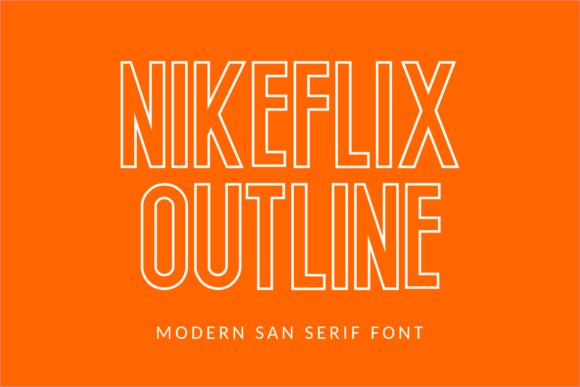
Introducing Nikeflix Outline, the ultimate display font designed by Goodrichees. If you're searching for the best font for your wedding hashtag, look no further. Nikeflix Outline is perfect for adding that extra touch of elegance to your big day.
But it's not just for weddings. This cool, outlined font is versatile enough to be used in a variety of design projects. Whether you're creating t-shirts, sportswear, logos, advertisements, or clothing, Nikeflix Outline is sure to make a statement.
With its modern and trendy design, Nikeflix Outline is the ideal choice for anyone who wants to stand out from the crowd. Its clean lines and unique style will instantly catch the eye of anyone who sees it.
But Nikeflix Outline isn't just about looks. It's also incredibly functional and easy to use. Whether you're a professional designer or just starting out, you'll find that this font is a breeze to work with.
So why wait? Start using Nikeflix Outline today and take your designs to the next level. With its eye-catching style and unbeatable versatility, it's the perfect addition to any design project.